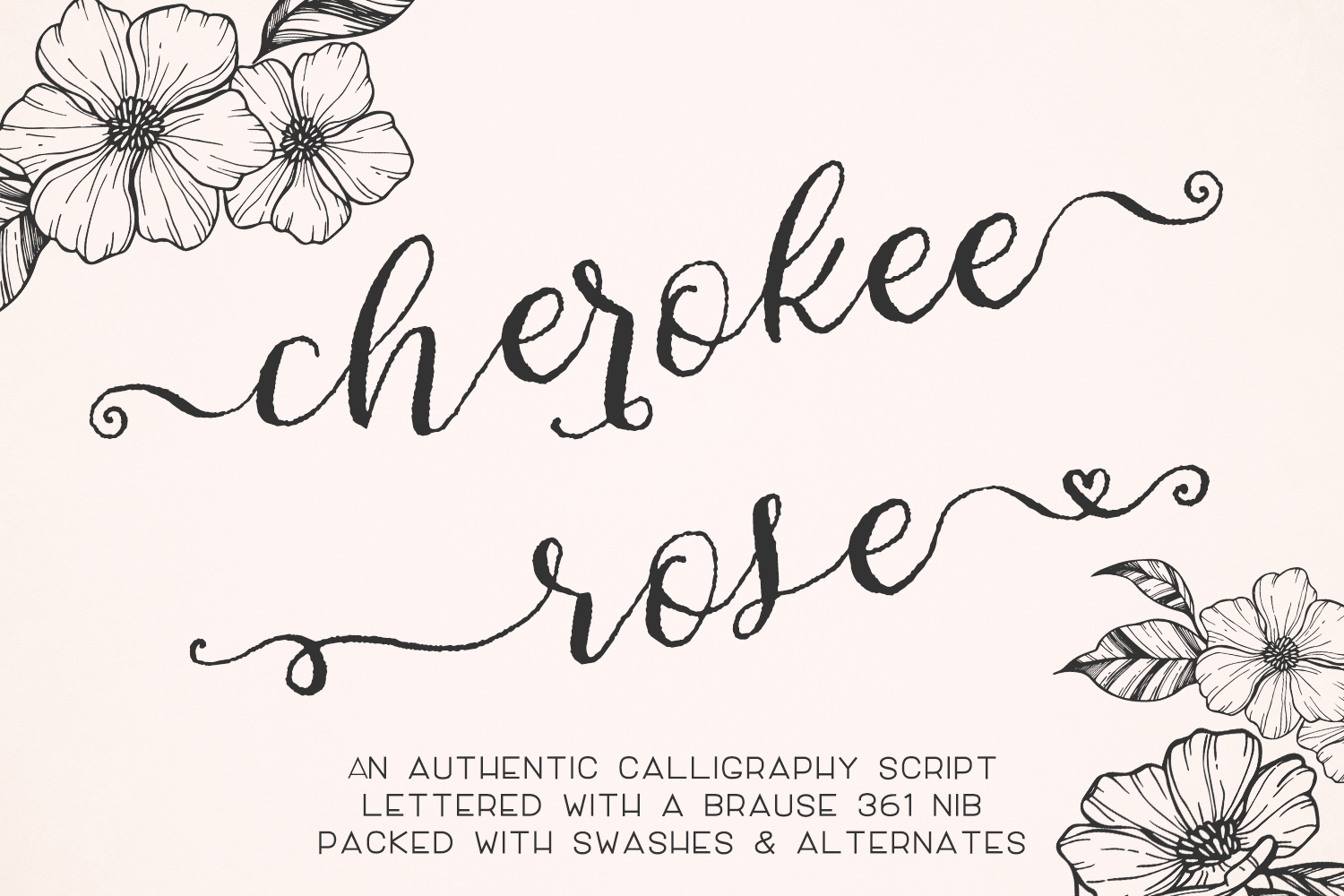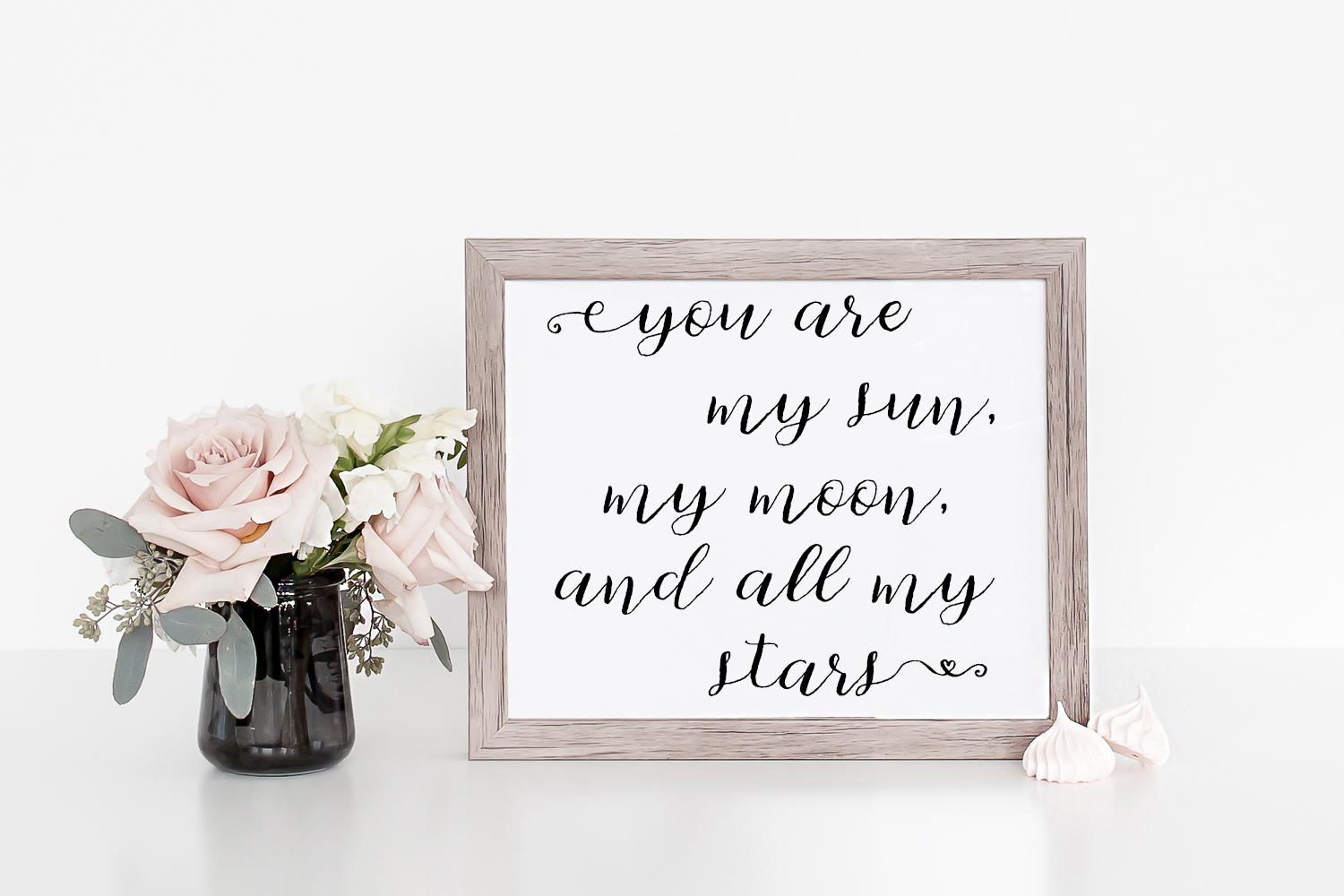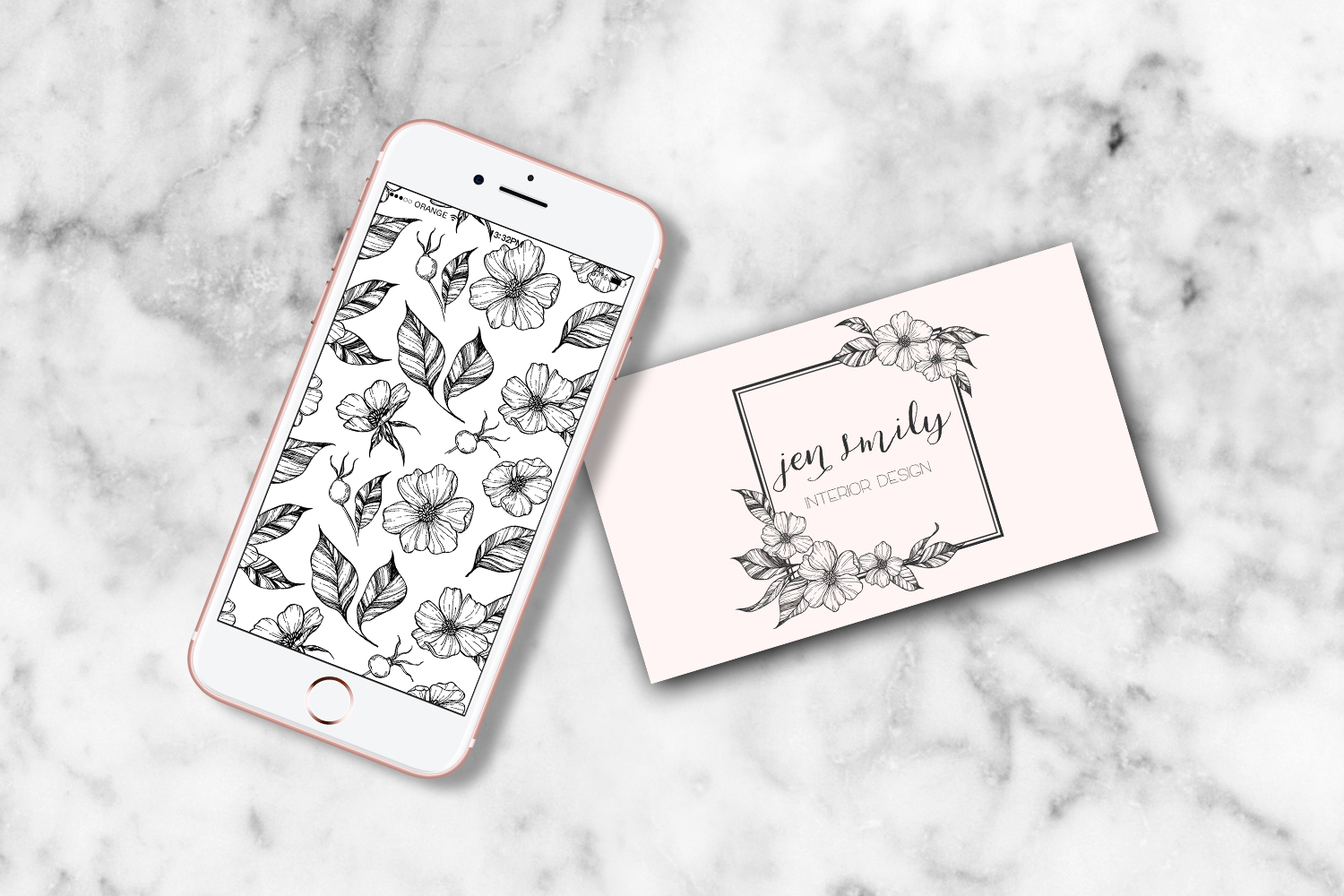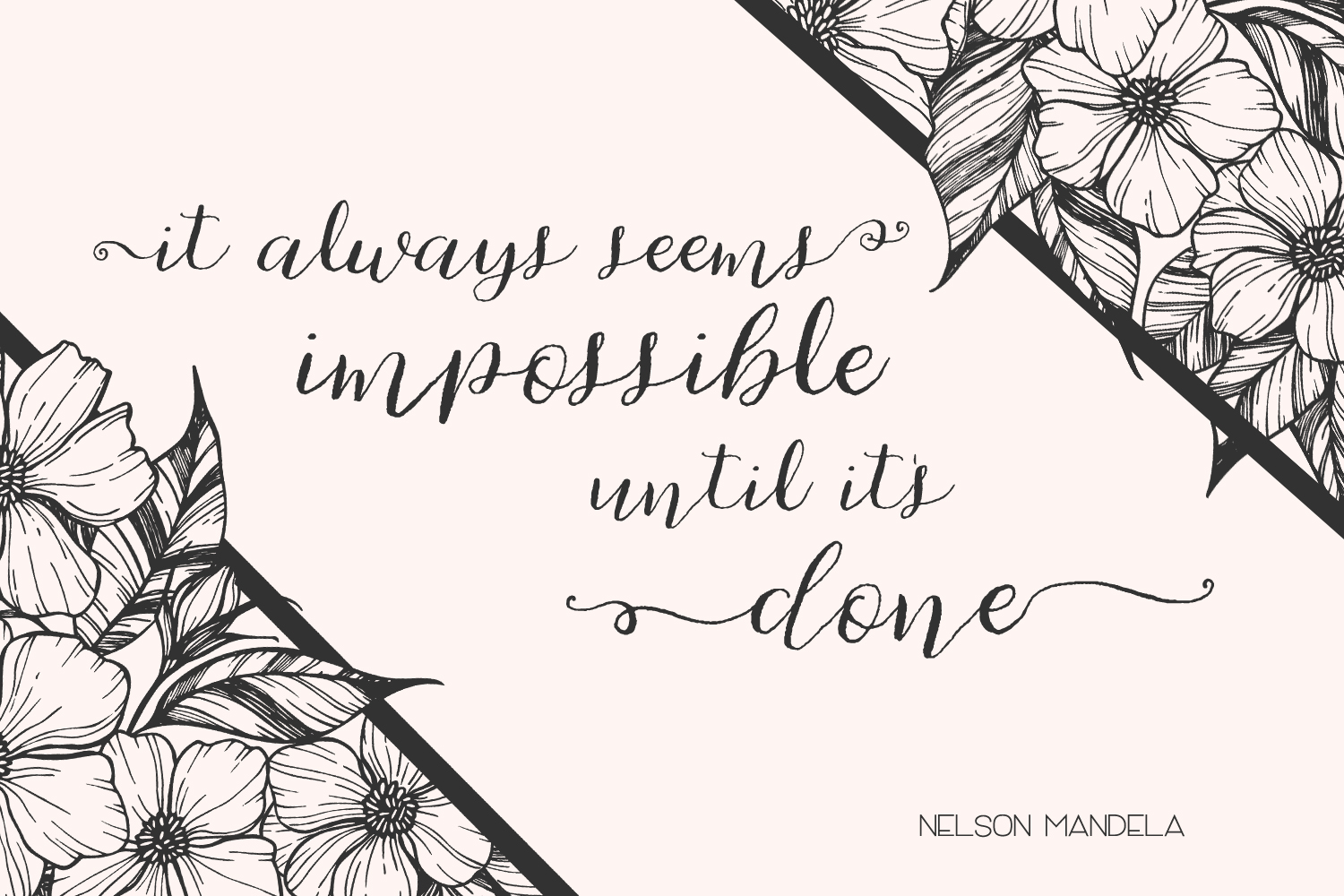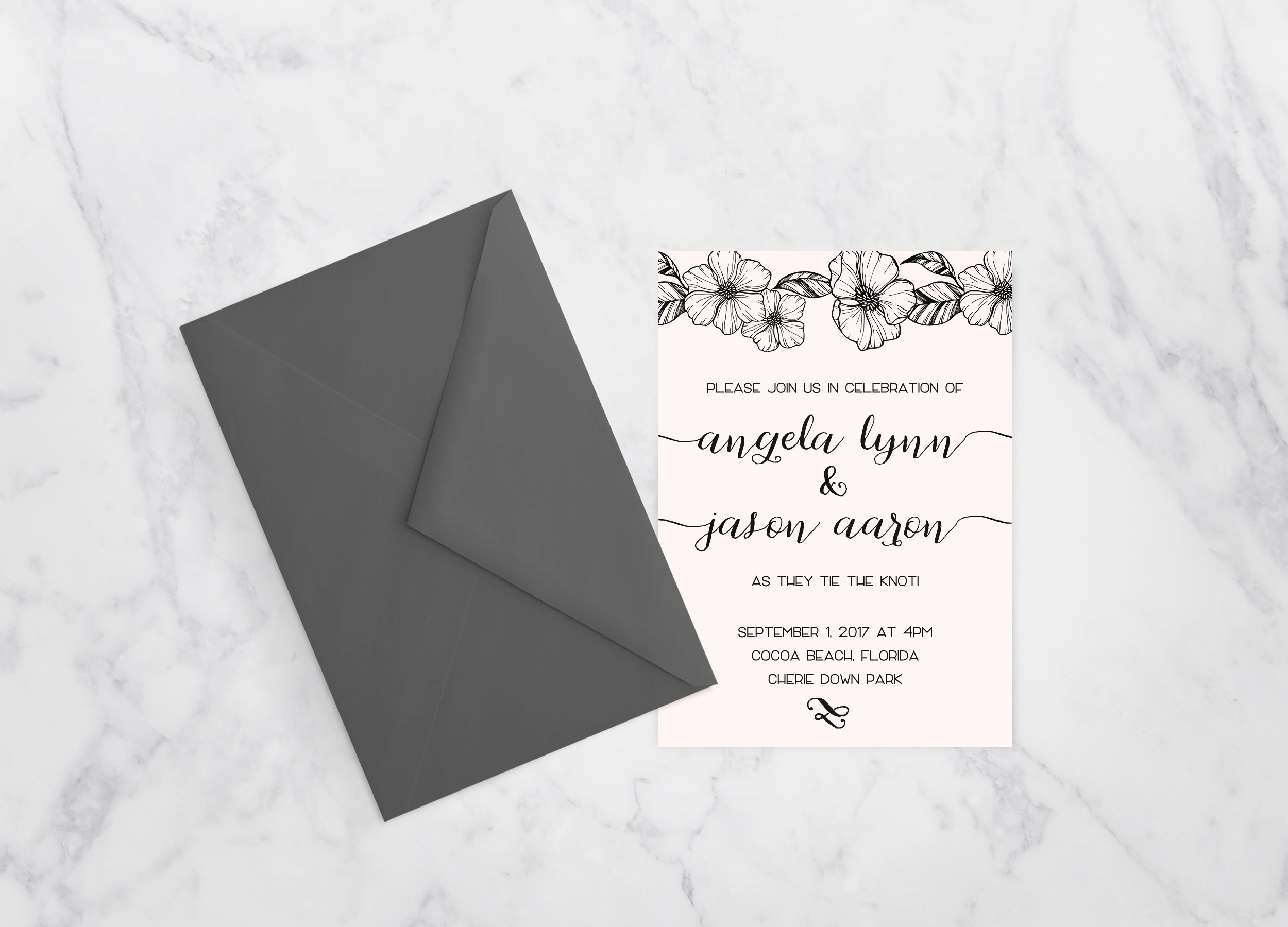
Cherokee Rose Font
Cherokee Rose Script, a beautiful, romantic hand-lettered calligraphy font, named after Georgia’s state flower.
This font originally began with Sumi ink and a Brause 361 Steno Blue Pumpkin nib, and was carefully scanned in. Cherokee Rose features a wobbly edge, showing the rich, textured quality you’d get if you were to put ink to paper just like this! Perfect for wedding invitations & suites, lovely signage, feminine logos & brands, girly t-shirt designs, & more.
Cherokee Rose is packed of alternates, ligatures, and swashes for a ton of variety & possibilities — 1009 glyphs total in this single font! Please note that not all alternates will work well with each & every letter, as they are not designed & lettered to be that way! Includes multiple options for the vast majority of letters (upper & lowercase), and 20 swash options (10 unique options; left & right swashes). Swashes are included as individual glyphs, as well as with the lowercase letters for your convenience.